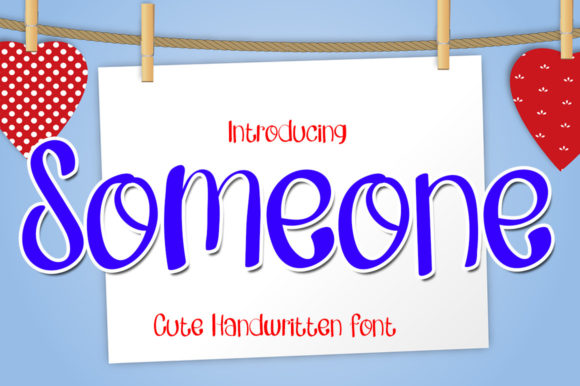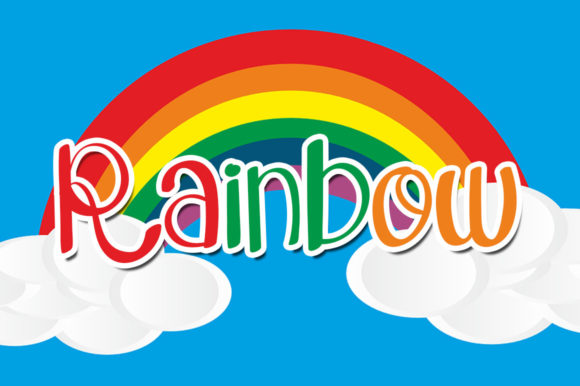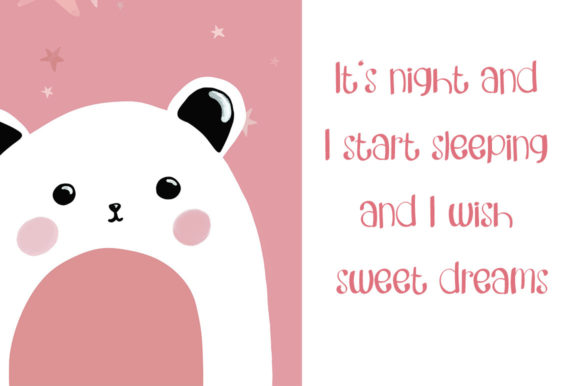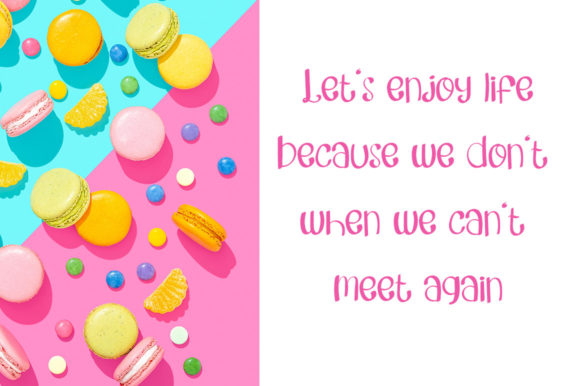
Someone Font
About Someone Font
Someone is a chic, round lettered and delicate script font. Its stylish alternates and ligatures make this font the perfect match for any project.